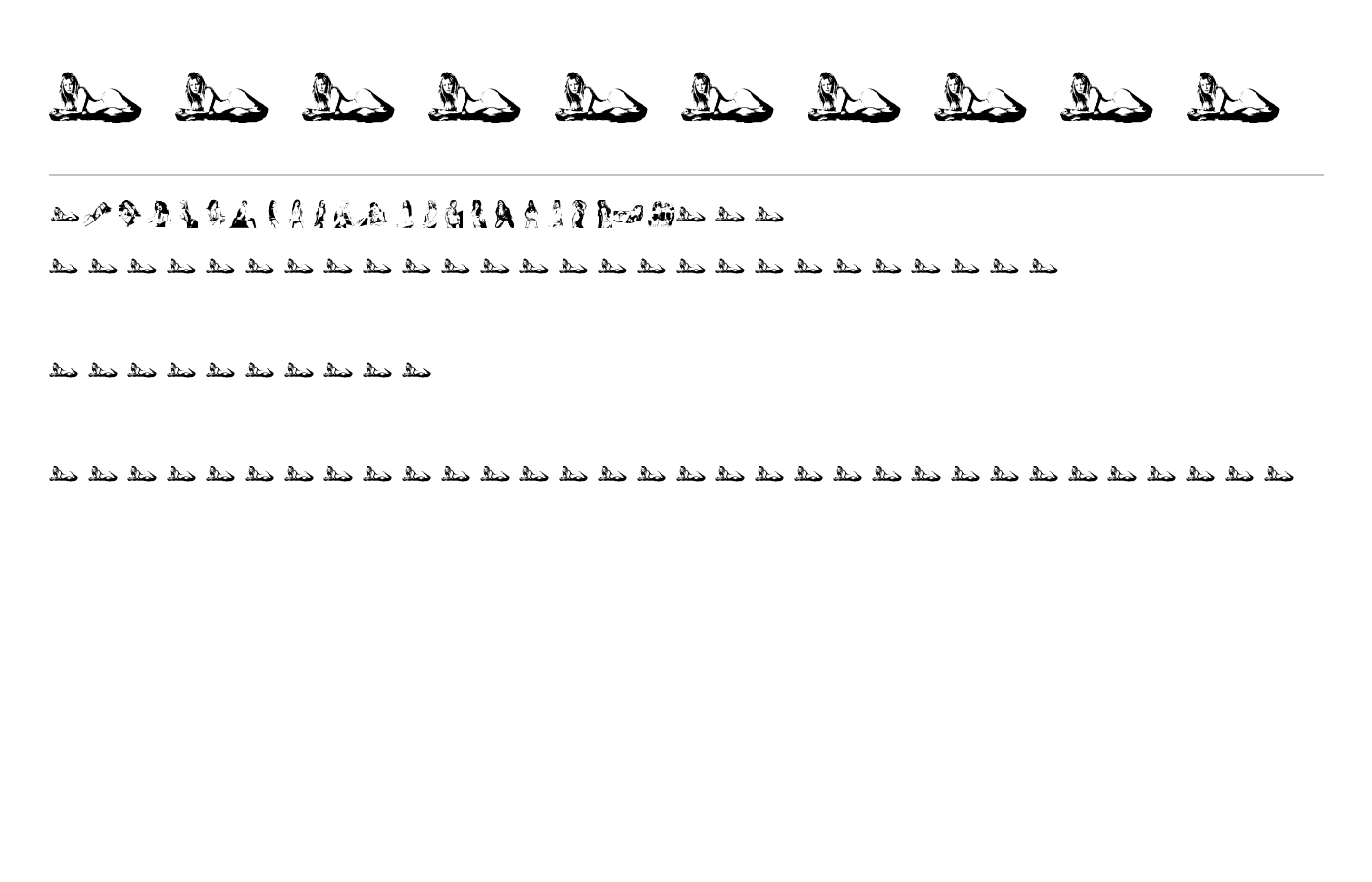
The Argentinas font is a decorative and illustrative typeface featuring repeated detailed images of a reclining woman rather than traditional letterforms. It serves more as a unique graphic element or symbol font, suitable for artistic and expressive design projects where a vintage or pin-up aesthetic is desired. This font works best in creative branding, posters, or themed packaging that aims to convey a playful and retro mood.
argentinas Font
About argentinas Font
| Font family | argentinas Font |